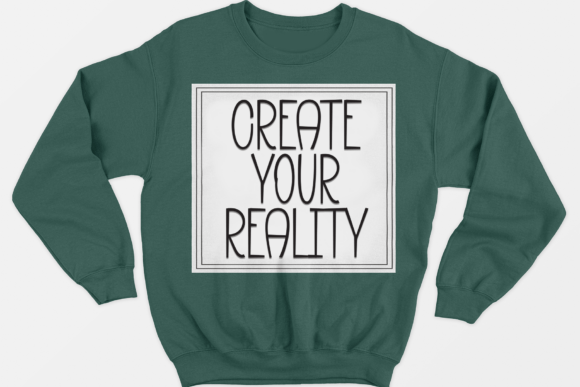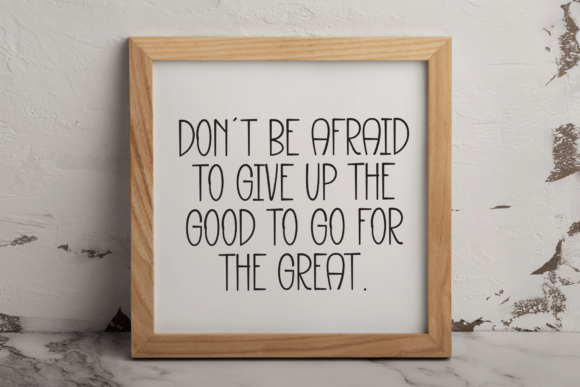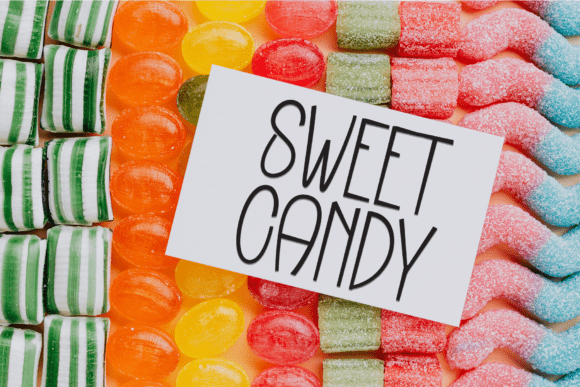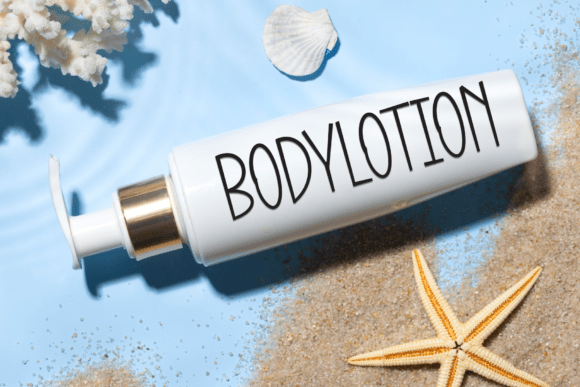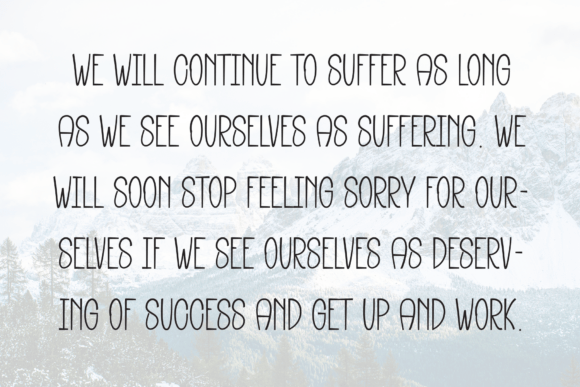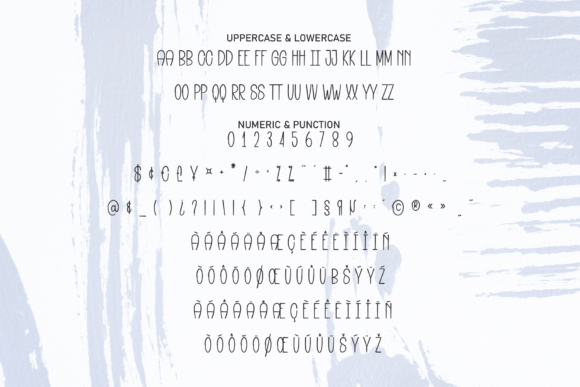
Introducing Brush Modern Font: The Perfect Blend of Simplicity and Friendliness
In the world of typography, fonts play a crucial role in conveying the tone and personality of a brand or design. When it comes to creating a lasting impression, the right font can make all the difference. This is where Brush Modern Font comes in – a casual and neat display font that combines simplicity with a friendly, approachable vibe. In this article, we’ll dive into the features and benefits of Brush Modern Font, and explore how it can elevate your designs to the next level.
Clean Lines, Balanced Letterforms, and Subtle Rounded Edges
Brush Modern Font boasts clean lines, balanced letterforms, and subtle rounded edges that capture the essence of modern handwritten typography with a polished finish. The font’s design is characterized by its:
- Clean Lines: Brush Modern Font features clean and precise lines that give it a crisp and modern look. The lines are smooth and free of any unnecessary embellishments, making it perfect for designs that require a touch of sophistication.
- Balanced Letterforms: The font’s letterforms are carefully crafted to ensure balance and harmony. Each letter is designed to work seamlessly with the others, creating a cohesive and visually appealing text.
- Subtle Rounded Edges: The subtle rounded edges of Brush Modern Font add a touch of warmth and friendliness to the font. This feature makes it perfect for designs that require a more approachable and inviting tone.
Ideal for Branding, Headlines, Packaging, and Digital Content
Brush Modern Font is an incredibly versatile font that can be used in a variety of design applications. Its clean and modern design makes it ideal for:
- Branding: Use Brush Modern Font to create a strong and recognizable brand identity. The font’s friendly and approachable vibe makes it perfect for brands that want to connect with their audience on a personal level.
- Headlines: Add a touch of sophistication to your headlines with Brush Modern Font. The font’s clean lines and balanced letterforms make it perfect for creating attention-grabbing headlines that draw the reader in.
- Packaging: Brush Modern Font is a great choice for packaging design. The font’s modern and polished finish makes it perfect for product labels, packaging inserts, and other marketing materials.
- Digital Content: Use Brush Modern Font to add a touch of warmth and personality to your digital content. The font’s clean and crisp design makes it perfect for blog posts, social media graphics, and other online content.
Adding a Warm and Inviting Touch to Any Design
Brush Modern Font has a unique ability to add a warm and inviting touch to any design. The font’s friendly and approachable vibe makes it perfect for designs that require a personal and relatable tone. Whether you’re creating a brand identity, designing a website, or crafting a marketing campaign, Brush Modern Font is the perfect choice.
Versatility and Clarity
Brush Modern Font delivers clarity and charm in equal measure. The font’s versatile style makes it perfect for a wide range of design applications, from branding and headlines to packaging and digital content. The font’s clean and modern design ensures that your message is conveyed clearly and effectively, while its friendly and approachable vibe adds a touch of personality to your design.
In conclusion, Brush Modern Font is a casual and neat display font that combines simplicity with a friendly, approachable vibe. With its clean lines, balanced letterforms, and subtle rounded edges, it captures the essence of modern handwritten typography with a polished finish. Ideal for branding, headlines, packaging, and digital content, Brush Modern Font adds a warm and inviting touch to any design. Its versatility and clarity make it the perfect choice for designers and crafters looking to elevate their designs to the next level.